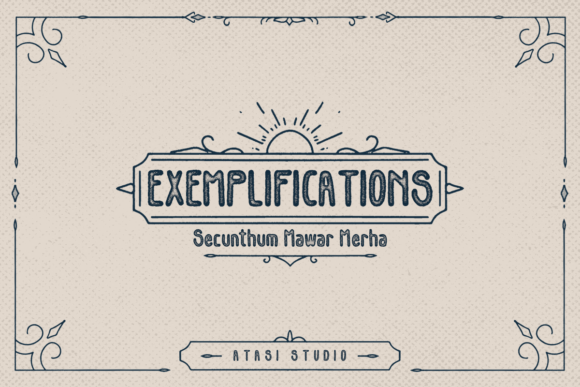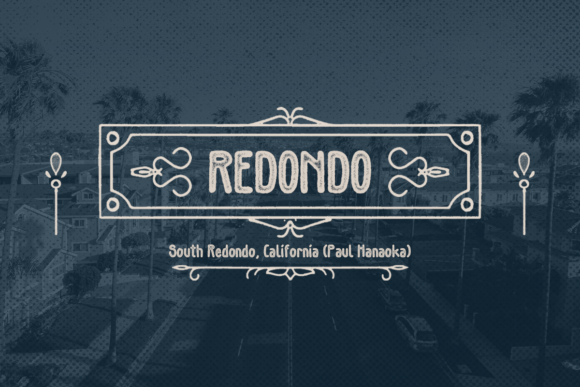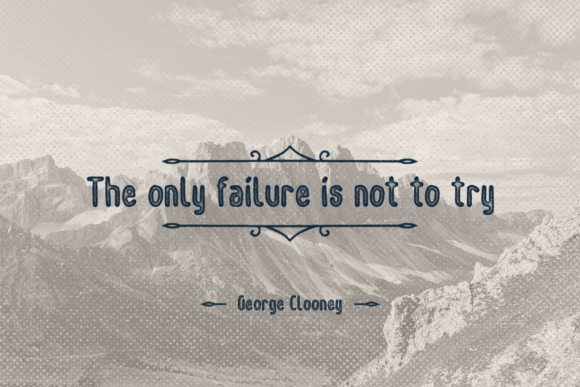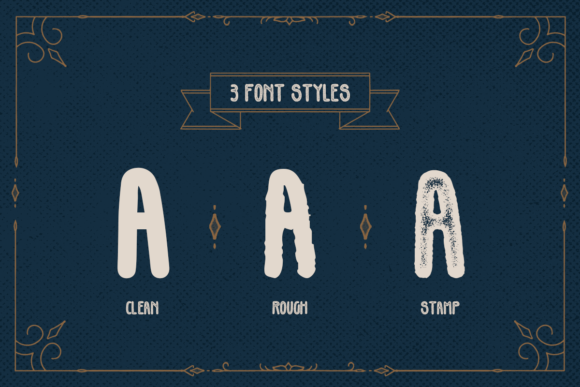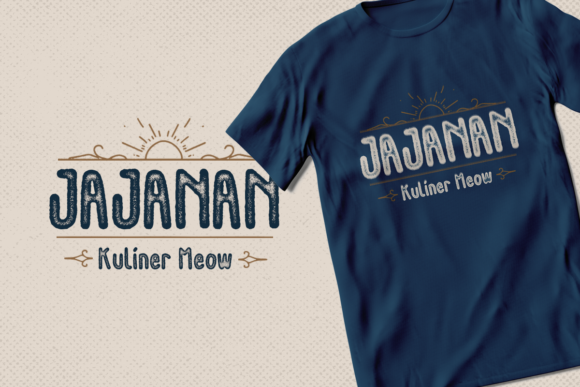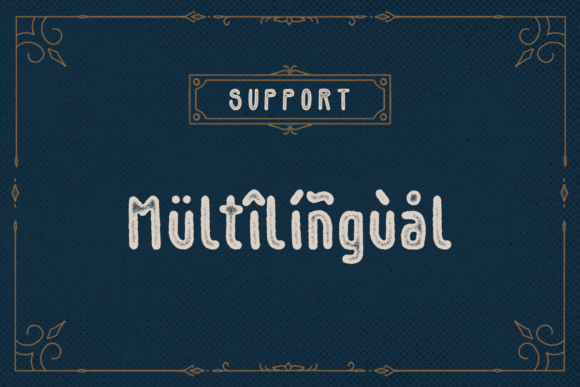
Gillphong Font: The Quirky Display Typeface You Need for Your Design Projects
Are you tired of using the same old fonts in your design projects? Do you want to add a touch of quirkiness and personality to your work? Look no further than the Gillphong font, a rough and unrefined display typeface that’s perfect for designers and crafters who want to stand out from the crowd.
What is Gillphong Font?
Gillphong font is a unique and eye-catching display typeface that’s designed to add a touch of whimsy and charm to your design projects. With its rough and unrefined texture, this font is perfect for designers who want to create something that’s truly one-of-a-kind.
Characteristics of Gillphong Font
So, what makes Gillphong font so special? Here are just a few of its key characteristics:
- Rough and unrefined texture: Gillphong font has a rough, hand-drawn texture that’s perfect for creating a sense of quirkiness and charm.
- Unique letterforms: Each letterform in the Gillphong font is carefully crafted to be distinctive and eye-catching.
- Perfect for display text: Gillphong font is designed specifically for display text, making it perfect for headlines, titles, and other large-format text.
Why Use Gillphong Font?
So, why should you use Gillphong font in your design projects? Here are just a few reasons:
- Adds personality to your design: Gillphong font is the perfect way to add a touch of personality and whimsy to your design projects.
- Stand out from the crowd: With its unique and eye-catching letterforms, Gillphong font is sure to help your design stand out from the crowd.
- Perfect for quirky designs: If you’re working on a design project that requires a quirky or offbeat vibe, Gillphong font is the perfect choice.
How to Use Gillphong Font
So, how can you use Gillphong font in your design projects? Here are a few ideas:
- Headlines and titles: Use Gillphong font to create eye-catching headlines and titles that grab attention.
- Logos and branding: Gillphong font is perfect for creating unique and memorable logos and branding elements.
- Social media graphics: Use Gillphong font to create eye-catching social media graphics that stand out from the crowd.
Tips for Pairing Gillphong Font with Other Fonts
When pairing Gillphong font with other fonts, here are a few tips to keep in mind:
- Pair with a sans-serif font: Pairing Gillphong font with a clean sans-serif font can help to create a nice contrast and add visual interest to your design.
- Use a bold font: Pairing Gillphong font with a bold font can help to create a sense of hierarchy and add emphasis to your design.
In conclusion, Gillphong font is a unique and eye-catching display typeface that’s perfect for designers and crafters who want to add a touch of quirkiness and personality to their design projects. With its rough and unrefined texture, unique letterforms, and perfect for display text, Gillphong font is sure to help your design stand out from the crowd.
So why not give Gillphong font a try? Fall in love with its one-of-a-kind look and feel, and see how it can help to take your design projects to the next level.